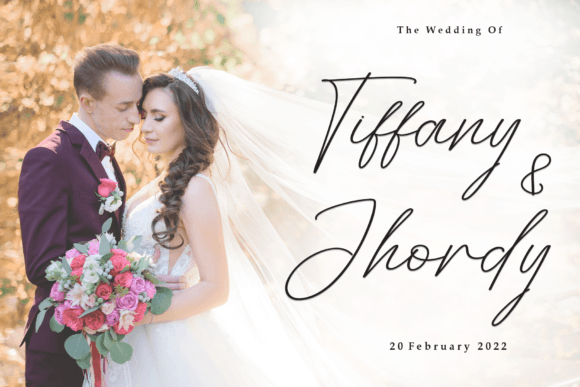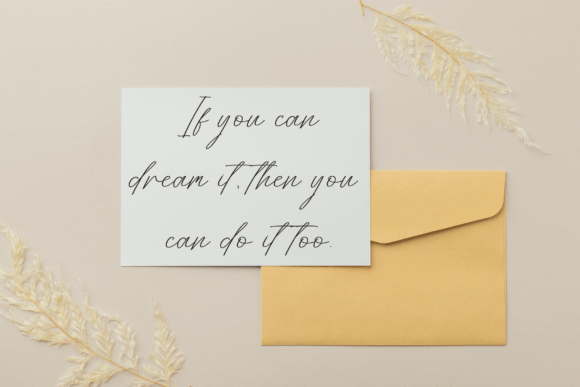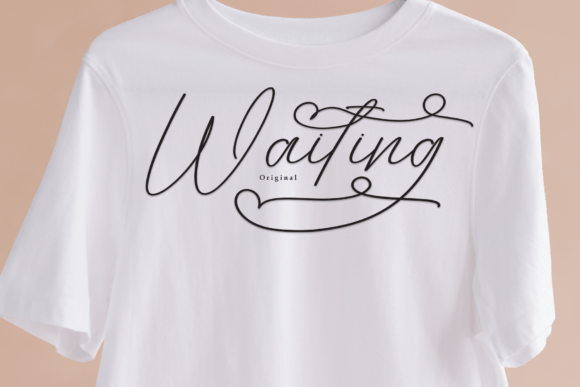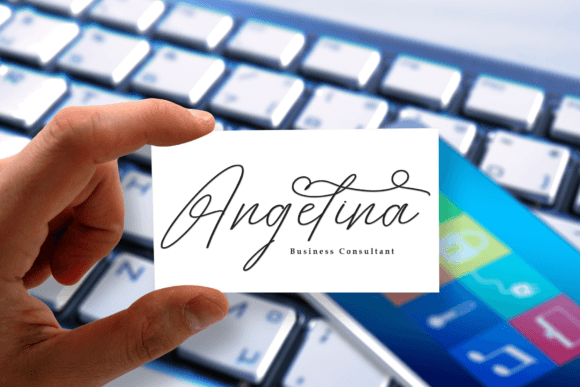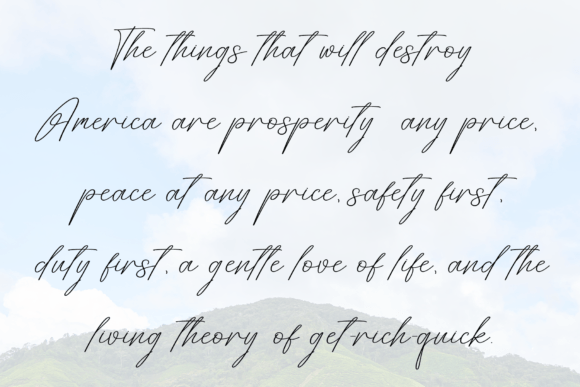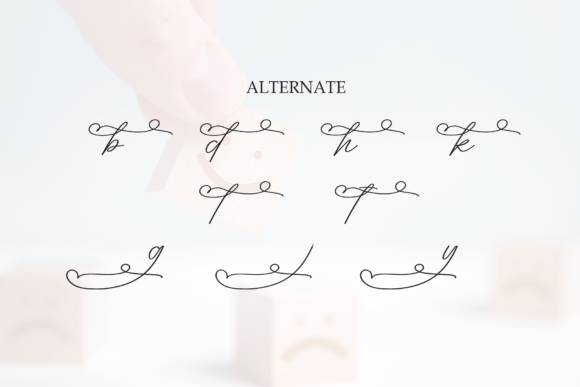
Discover the Charm of Feeling Font: A Romantic Calligraphy Typeface
Are you a designer or crafter looking for a typeface that exudes romance and sweetness? Look no further than Feeling Font, a beautiful calligraphy typeface that is sure to capture your heart. With its characters dancing along the baseline, Feeling Font brings a casual yet elegant touch to any design project.
What is Feeling Font?
Feeling Font is a romantic and sweet calligraphy typeface designed to add a touch of whimsy and charm to your designs. Its unique characters are carefully crafted to dance along the baseline, creating a sense of movement and fluidity. This distinctive feature sets Feeling Font apart from other typefaces, making it perfect for designers and crafters who want to add a personal touch to their work.
Key Features of Feeling Font
- Romantic and Sweet: Feeling Font is designed to evoke feelings of love and warmth, making it perfect for designs that require a touch of romance.
- Calligraphy Style: With its flowing lines and connected characters, Feeling Font has a beautiful calligraphy style that adds elegance to any design.
- Casual yet Elegant: Feeling Font strikes the perfect balance between casual and elegant, making it suitable for a wide range of design projects.
- Characters that Dance: The unique characters of Feeling Font dance along the baseline, creating a sense of movement and fluidity.
Uses of Feeling Font
Feeling Font is a versatile typeface that can be used in a variety of design projects, including:
- Wedding Invitations: Add a touch of romance to your wedding invitations with Feeling Font.
- Stationery: Use Feeling Font to create beautiful stationery, such as greeting cards and thank-you cards.
- Branding: Feeling Font is perfect for branding projects that require a touch of elegance and sophistication.
- Packaging: Add a personal touch to your packaging designs with Feeling Font.
Tips for Using Feeling Font
Here are some tips for using Feeling Font in your design projects:
- Pair with Simple Backgrounds: Feeling Font looks best on simple backgrounds that allow the typeface to take center stage.
- Experiment with Colors: Try pairing Feeling Font with different colors to create a unique and eye-catching design.
- Use for Headlines: Feeling Font is perfect for headlines and titles, adding a touch of elegance and sophistication to your design.
Feeling Font is a beautiful calligraphy typeface that is sure to capture your heart. With its romantic and sweet design, Feeling Font is perfect for designers and crafters who want to add a touch of elegance and sophistication to their work. Whether you’re designing wedding invitations, stationery, or branding materials, Feeling Font is a versatile typeface that is sure to impress.